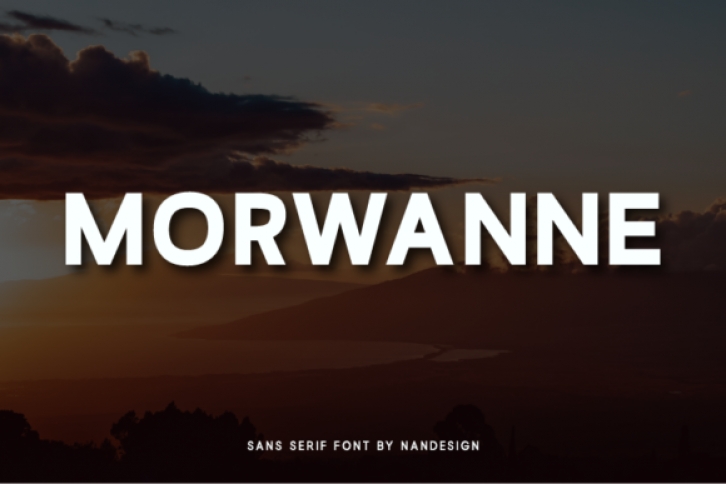
Morwanne is a simple and casual sans serif font. Whether you’re using it for crafting, digital designing, presentations or greeting cards making, it’s perfect!